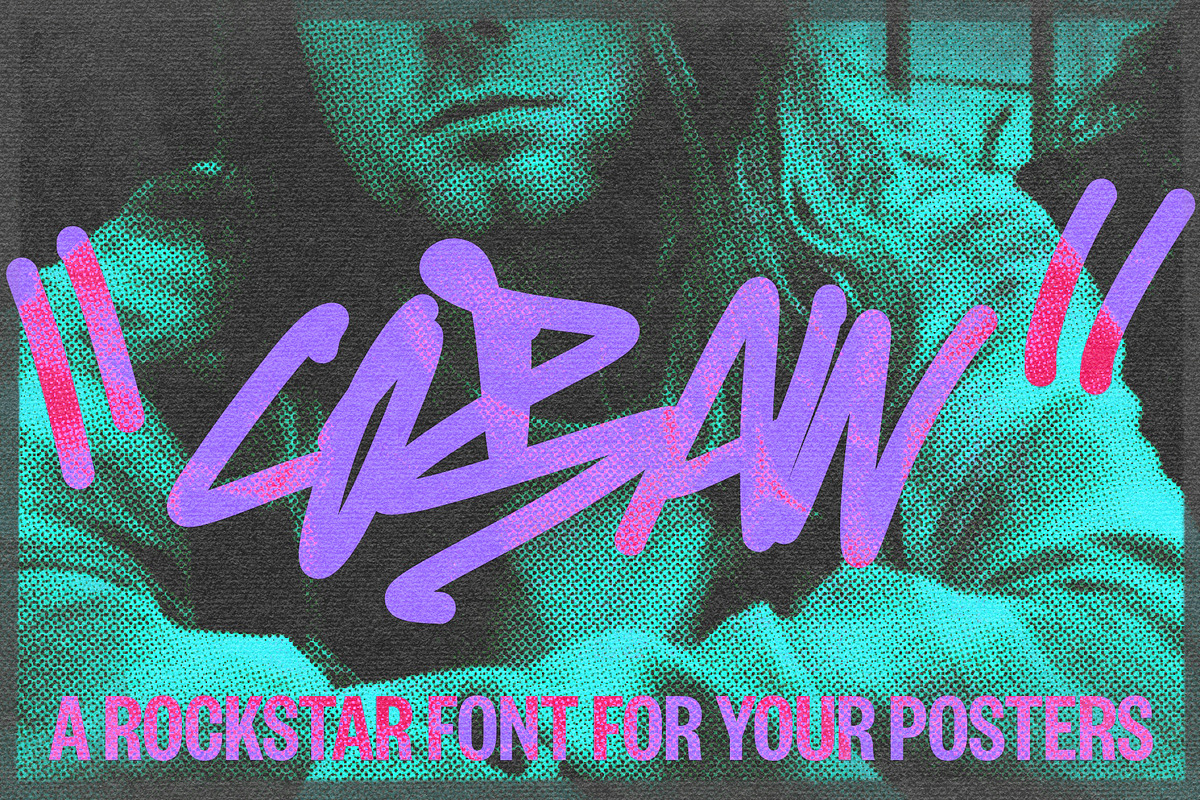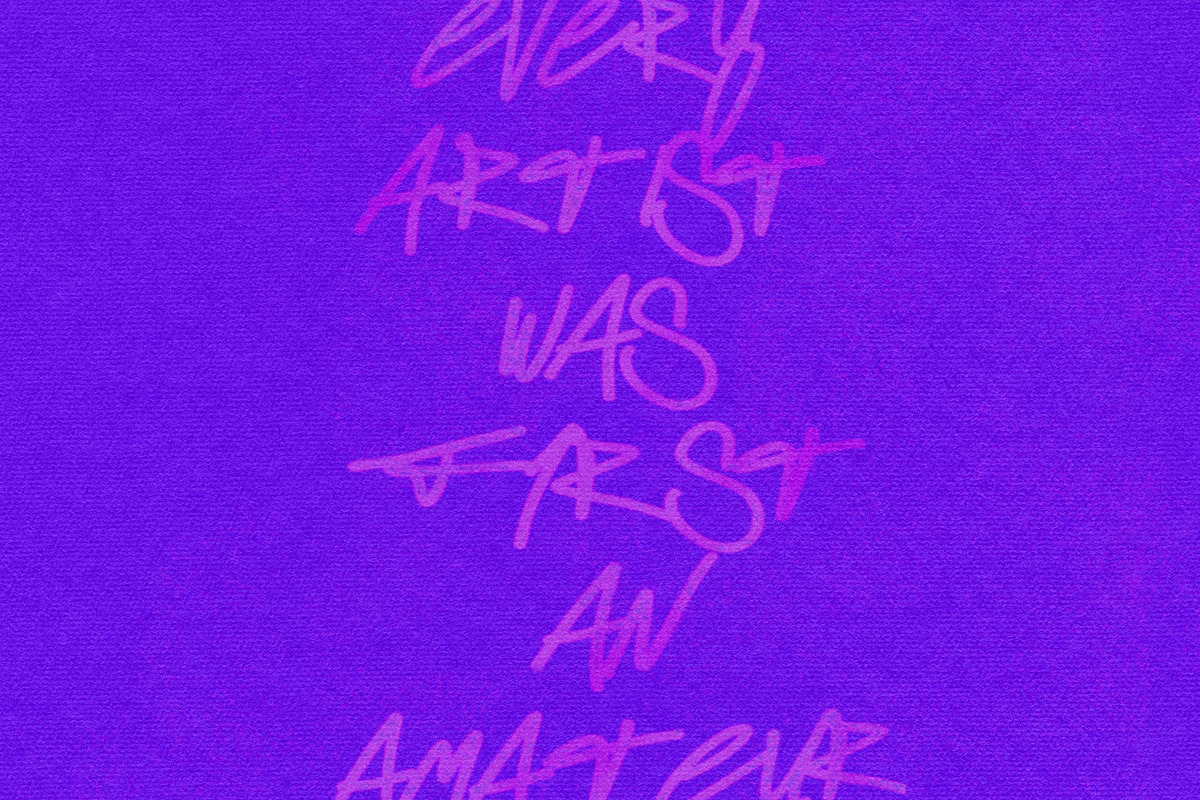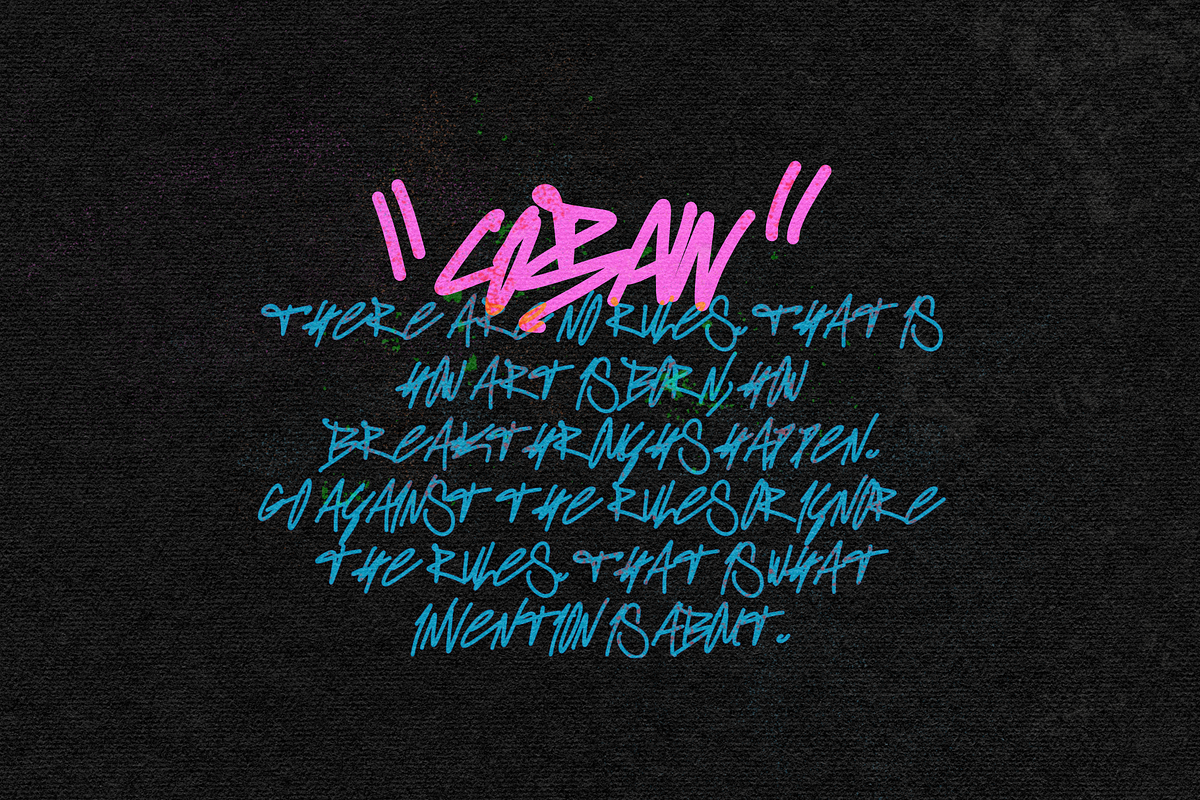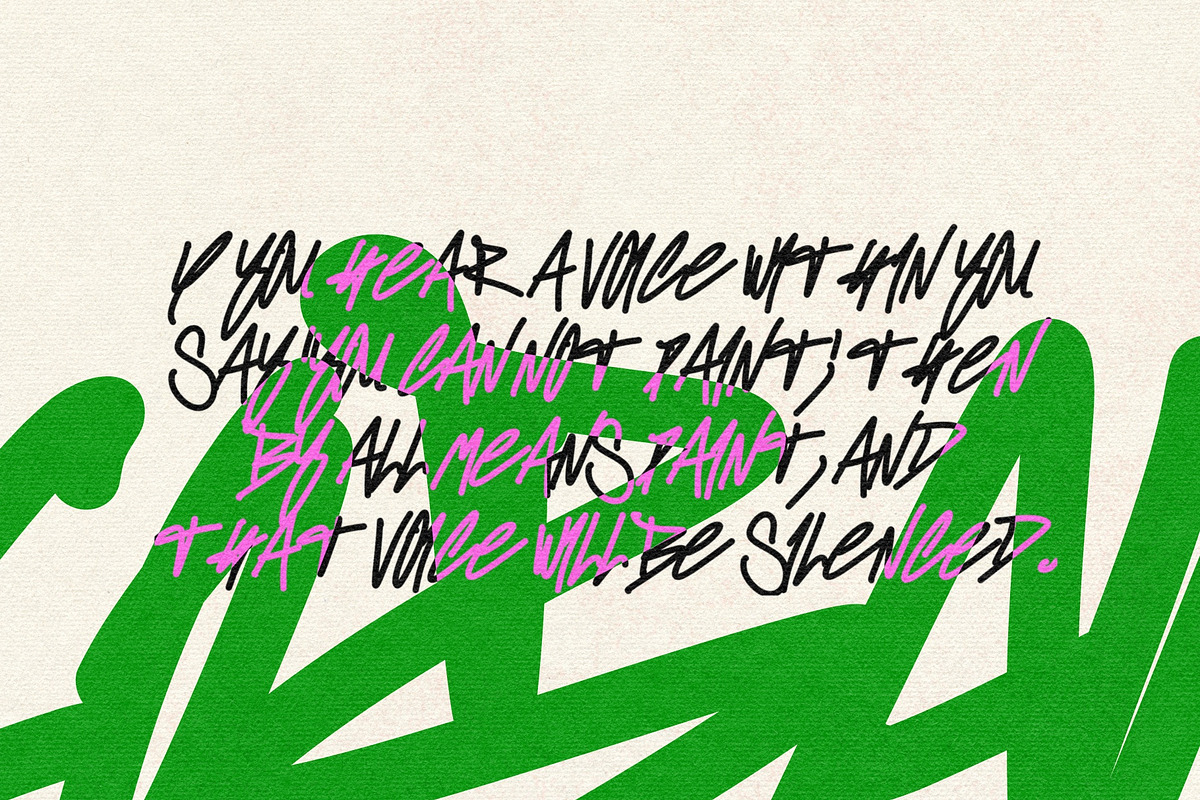
COBAIN FONT
Inspired by the unique and often chaotic signatures of legendary musicians, COBAIN FONT brings an authentic, handcrafted feel to your typography. Whether you're designing album covers, posters, or promotional materials, this font is your ticket to becoming a rockstar in the world of design.
Irregular and jagged letterforms that mirror the spontaneity of a signature scrawled in haste. Bold strokes and exaggerated flourishes for added drama and impact. Distinctive characters that stand out and demand attention. An all-caps design for a bold, in-your-face look.
COBAIN OTF is perfect for music-related projects, concert posters, album covers, merchandise, and any design where you want to inject a rebellious and rock 'n' roll vibe. It's the font of choice when you want to make a statement and leave an unforgettable impression.
ROCK IT WITH COBAIN!!!